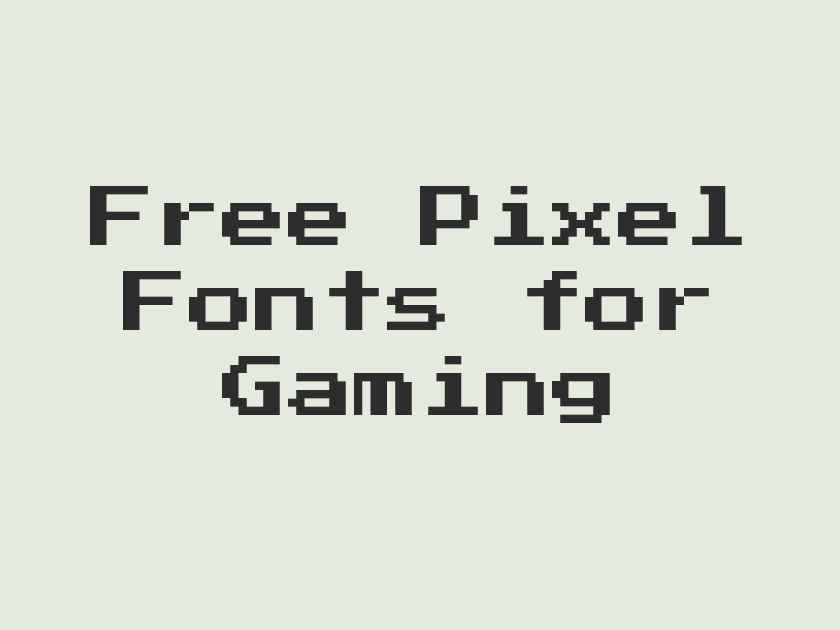
51 Best Free Pixel Fonts for Gaming
Pixel fonts carry the DNA of early computing and arcade cabinets, and they remain one of the fastest ways to signal “game” the instant someone lands on a page. Whether you are building a retro platformer, designing an esports scoreboard, or just want a nameplate that feels like it belongs on a CRT monitor, free pixel fonts from Google Fonts cover an enormous range: true bitmap letterforms built on a strict grid, dot-matrix and LED-style variables, and blocky arcade display faces that pair naturally with 8-bit and 16-bit art. This roundup moves from the most literal bitmap fonts through dot-matrix experiments and into the chunkier retro-arcade and terminal styles that finish off a gaming UI.
Press Start 2P
The unofficial mascot of free pixel fonts, this face was drawn directly from classic arcade cabinet typography and it shows in every square-cut letterform. It is instantly recognizable, which is exactly the point when you want a UI element to read as “video game” without any further explanation. Keep it to short bursts of text; at paragraph length its wide, blocky rhythm gets exhausting to read.
VT323
There is a green-on-black terminal humming somewhere behind this font. VT323 mimics the low-resolution CRT displays of early computers, with slightly rounded pixel edges that feel more like a monitor than a printed grid. It is a natural fit for hacking sequences, loading screens, and any interface that wants to feel like it is running on borrowed 1980s hardware.
Silkscreen
Silkscreen keeps its pixels tight and even, giving it a slightly more polished, screen-printed feel than rougher bitmap fonts. It reads cleanly at very small sizes, which makes it useful for scoreboards, inventory labels, and other dense in-game text where legibility actually matters.
Pixelify Sans
This one softens the bitmap concept just enough to work as body-adjacent text rather than pure display. The rounded pixel joins give it a friendlier, more approachable mood, so it suits cozy indie games, mobile titles, and character selection screens more than gritty dungeon crawlers.
DotGothic16
Originally built for Japanese dot-matrix displays, DotGothic16 has a crisp, evenly spaced grid feel with full Latin support alongside its Japanese glyphs. It works well for HUD text and status readouts, and it is a smart pick if your game needs bilingual signage without switching typefaces.
Jersey 10
Jersey 10 leans thin and tall, giving it a scoreboard-jersey energy that suits countdown timers and numeric displays. It is one of several related weights in the Jersey family, so it plays nicely as part of a small system rather than standing alone.
Jersey 10 Charted
This is the graph-paper cousin of Jersey 10, with a visible grid texture built into the letterforms. It suits anything that wants to look like it was plotted on an old scoreboard display panel, health meters and timers especially.
Jersey 15
A touch sturdier than Jersey 10, this weight holds up better in headlines and short titles while keeping the same sporty, stadium-display character.
Jersey 15 Charted
Same sturdy proportions as Jersey 15, but with the charted grid texture that makes it feel like it is glowing off an old LED sign.
Jersey 20
Jersey 20 sits comfortably as a mid-weight option for banners and title cards, bold enough to anchor a page without tipping into pure novelty.
Jersey 20 Charted
The charted version adds that dot-matrix texture back in, useful when a heading needs to feel like it belongs on an arcade marquee rather than a webpage.
Jersey 25
The boldest of the standard Jersey weights, this one is built for short, punchy headlines. Pair it with a plainer body font like Share Tech Mono or a standard sans for readable supporting copy.
Jersey 25 Charted
Heavy, gridded, and unmistakably digital, this variant is best saved for hero titles and splash screens where its texture can actually be seen.
Micro 5
Built for extreme smallness, Micro 5 stays legible at sizes where most display fonts collapse into mush. It is worth testing for dense stat blocks or inventory grids where every pixel of space counts.
Always test any pixel or dot-matrix font at the exact size it will render on screen. Many look sharp at their native resolution but turn muddy the moment they are resized.
Between the strict bitmap grids, the dot-matrix experiments, and the blockier arcade display faces, there is more than enough here to build a full retro gaming type system without spending a cent. Download a handful, test them at real interface sizes, and let the pixels do the work of setting the mood before a single sprite even loads.